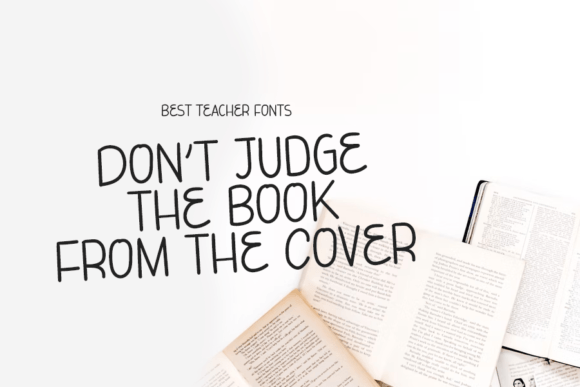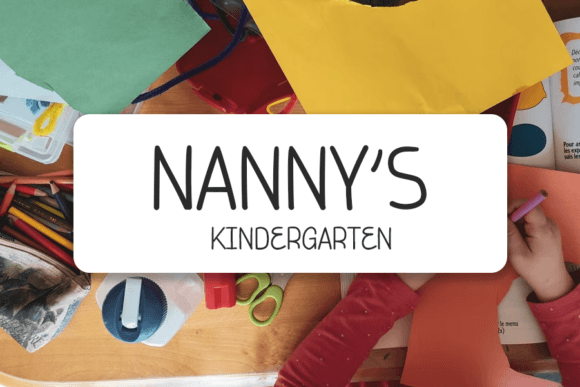
About Best Teacher Font
“Best Teacher” is more than just a font; it’s a fun and friendly handwritten typeface designed to bring a lively and refreshing look to your designs. Meticulously crafted, this font is particularly tailored for those who seek a beautiful and approachable aesthetic. Whether you’re creating educational materials, posters, or other design projects, “Best Teacher” adds a touch of fun and friendliness.
The fun and friendly nature of “Best Teacher” is immediately apparent in its handwritten style. Each character exudes a sense of playfulness, making it an excellent choice for projects that aim to convey a light and approachable vibe. This font is versatile and can be used in various educational contexts or any design that benefits from a warm and friendly touch.
The refreshing look of “Best Teacher” becomes a defining feature, setting it apart in the realm of handwritten fonts. Its casual charm and smooth strokes add a touch of uniqueness, making it suitable for creating visually appealing and engaging designs.
Crafted with care, “Best Teacher” is a font that brings a refreshing and friendly look to your designs. Its versatility ensures that it can be used in a wide range of applications, from educational materials to branding, adding a touch of fun to each project.
In summary, “Best Teacher” is not just a font; it’s a design companion that brings a fun and friendly vibe to your creative projects. Let it be the choice that adds a refreshing and approachable touch to your designs. With “Best Teacher,” every creation becomes an opportunity to showcase the joy and warmth of handwritten design.